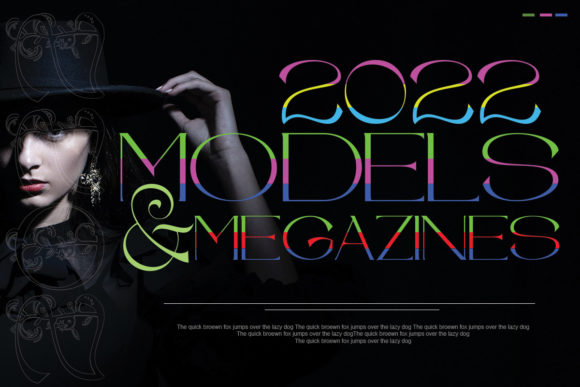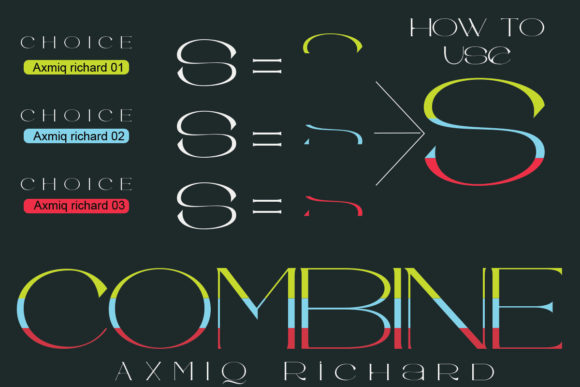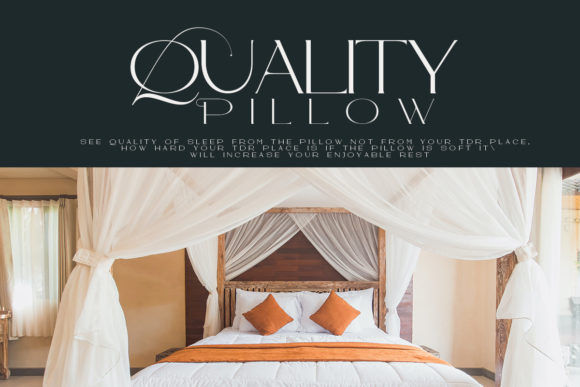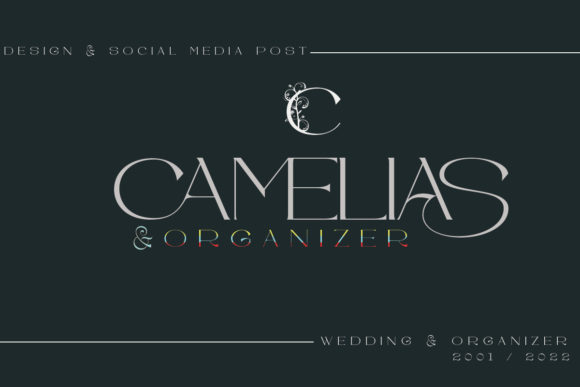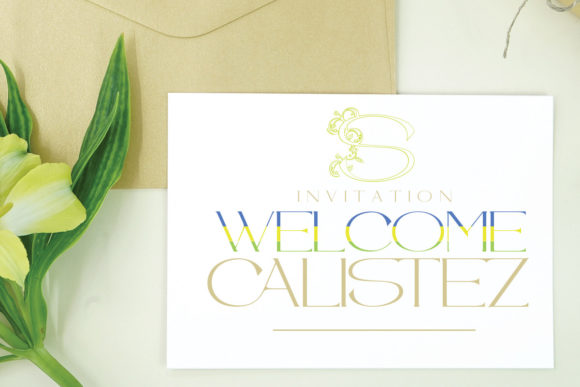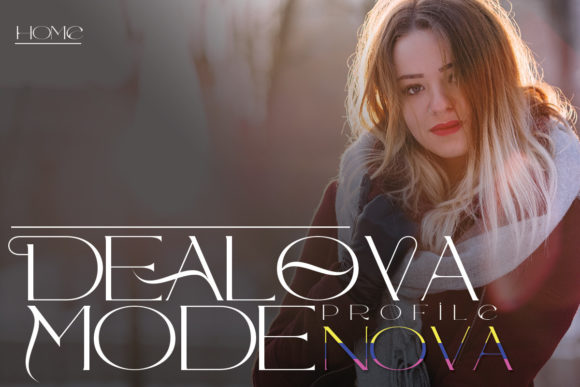
Discover the Elegance of Axmiq Richard Font: Elevate Your Creations with this Lovely Duo Font
Are you a designer or crafter looking for a unique and elegant font to take your creations to the next level? Look no further than Axmiq Richard Font, a stunning duo font that combines the classic charm of serif fonts with the whimsy of decorative fonts. In this article, we’ll dive into the features and benefits of Axmiq Richard Font, and explore how it can elevate a wide range of projects.
What is Axmiq Richard Font?
Axmiq Richard Font is a beautiful duo font that consists of a serif font and a decorative font, carefully crafted to provide a unique and captivating visual experience. The font’s delicate and distinct style makes it perfect for a variety of applications, from digital designs to print materials.
Key Features of Axmiq Richard Font
- PUA Encoding: Axmiq Richard Font is PUA (Private Use Area) encoded, which means that you can easily access all the amazing glyphs and ligatures without any hassle. This feature makes it simple to get creative and experiment with different typography combinations.
- Duo Font: The font comes with two styles: a serif font and a decorative font. This allows you to mix and match the fonts to create visually appealing combinations that add depth and interest to your designs.
- Elegant and Delicate: Axmiq Richard Font boasts an elegant and delicate style that adds a touch of sophistication to any project. The font’s intricate details and subtle nuances make it perfect for designs that require a high level of refinement.
Benefits of Using Axmiq Richard Font
So, why should you choose Axmiq Richard Font for your next project? Here are just a few benefits of using this lovely duo font:
- Elevate Your Designs: Axmiq Richard Font is designed to elevate your creations and take them to the next level. Whether you’re working on a logo, branding materials, or digital designs, this font is sure to make a lasting impression.
- Versatility: The font’s versatility makes it suitable for a wide range of applications, from print materials like brochures and posters to digital designs like social media graphics and website headers.
- Easy to Use: With PUA encoding, you can easily access all the glyphs and ligatures, making it simple to get creative and experiment with different typography combinations.
Who Can Benefit from Axmiq Richard Font?
Axmiq Richard Font is perfect for a variety of designers and crafters, including:
- Graphic Designers: Whether you’re working on a logo, branding materials, or digital designs, Axmiq Richard Font is a great addition to your font library.
- Digital Designers: If you’re creating social media graphics, website headers, or other digital designs, this font is sure to elevate your creations.
- Crafters: If you’re a crafter who loves to create handmade cards, scrapbook pages, or other paper crafts, Axmiq Richard Font is a great choice for adding a touch of elegance to your projects.
In conclusion, Axmiq Richard Font is a stunning duo font that offers a unique combination of elegance and whimsy. With its PUA encoding, delicate style, and versatility, this font is perfect for designers and crafters who want to elevate their creations and take them to the next level. Whether you’re working on a digital design or a print project, Axmiq Richard Font is sure to make a lasting impression.